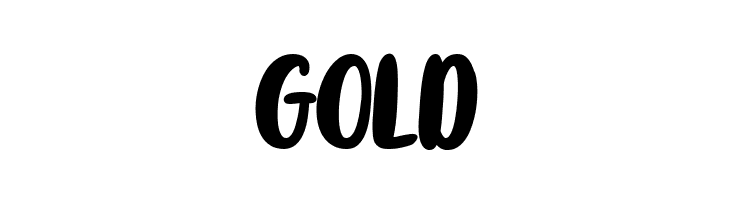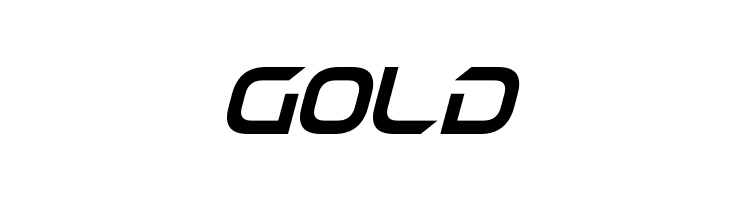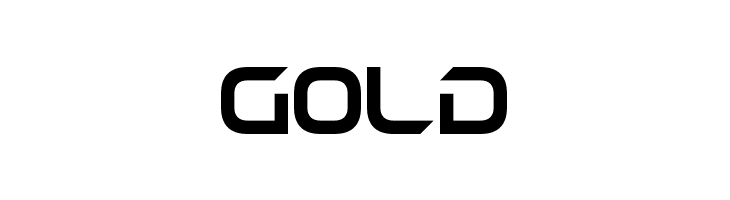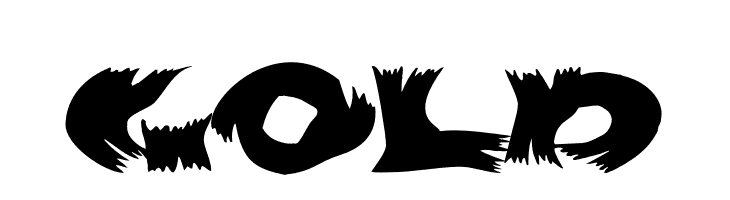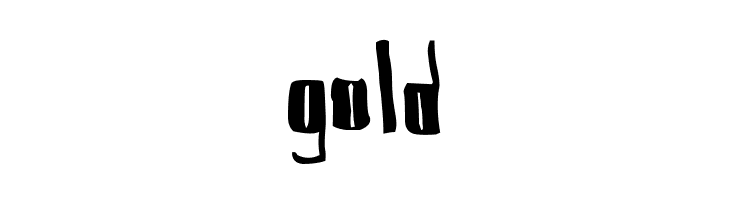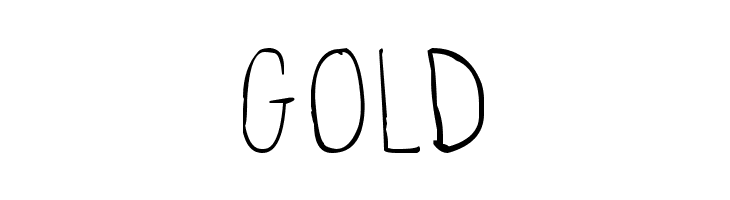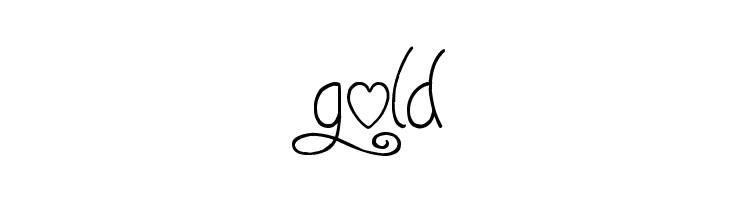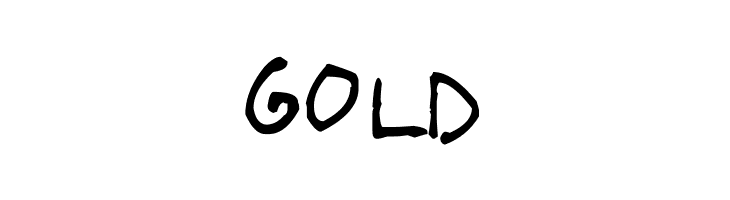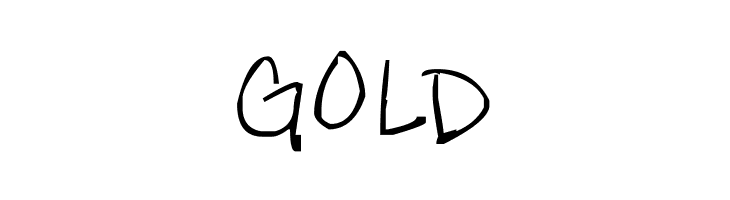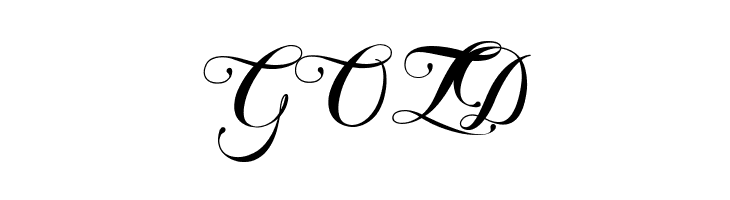
• Hurrikanish
A bold, jagged font with a stormy, dynamic appearance.
• Hyper heliX
A futuristic, angular font with a modern and dynamic style.
• Hyper heliX Italic
A futuristic, italic font with sharp angles and a dynamic, modern design.
• Hyperbole
• Hypnotica
An elegant script font with flowing cursive style and intricate swashes.
• I am Nervous.
• i eat crayons
A playful, crayon-like handwritten font with thick, textured strokes.
• I lost my Unicorn
A bold, playful handwritten font with rounded strokes and a whimsical style.
• I Love What You Do!!..
A whimsical, decorative font with playful swirls and heart motifs.
• I Still Believe
A casual, handwritten font with a playful and informal style.